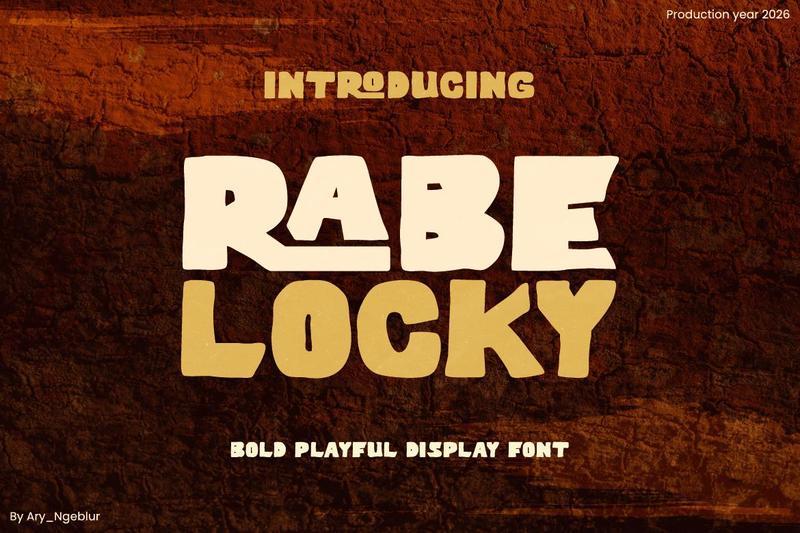
Introducing **Rabe Locky** , a cool and elegant modern Decorative font. Elegant font feel. This font gives you a beautiful and modern atmosphere. suitable for posters, book covers, cards, merchandise, etc.